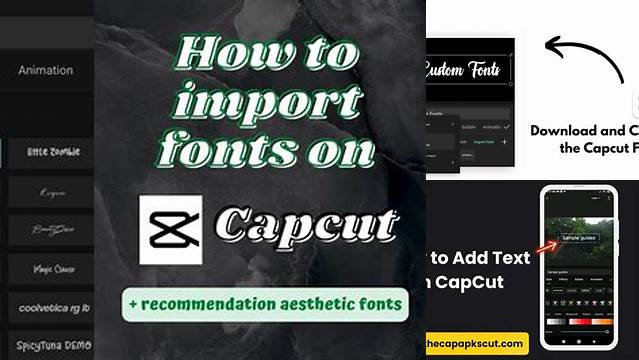
Import Fonts To CapCut IPhone: Easy Guide
Hey guys! Ever felt like your CapCut videos are missing that special something? Chances are, it might just be the fonts. You know, the right font can totally transform your video from blah to bam! And if you're an iPhone user rocking CapCut, you've come to the right place. This guide is your ultimate roadmap to importing custom fonts and leveling up your video editing game. We're going to dive deep into why custom fonts matter, how to find amazing fonts, and the step-by-step process of getting them onto your iPhone and into CapCut. Trust me, by the end of this, you'll be a font-importing pro!
Why Custom Fonts Matter in CapCut
Let's get real for a sec. The default fonts in any video editing app, including CapCut, are... well, they're fine. They do the job. But they're not exactly going to make your videos stand out from the crowd, are they? That's where custom fonts come in. Think of them as the secret sauce to your visual storytelling. The perfect font can amplify your message, set the mood, and inject your videos with personality. Imagine you're creating a fun, quirky vlog – a playful, hand-drawn font would be the bomb! Or perhaps you're crafting a sophisticated tutorial – a sleek, modern font would scream professionalism. See what I mean? Custom fonts aren't just about making things look pretty; they're about communication. They're about adding an extra layer of depth and meaning to your videos. They allow you to truly express your unique style and brand. Using custom fonts allows you to maintain consistency across all your videos, reinforcing your brand identity. By choosing fonts that reflect your brand's personality, you can create a cohesive and recognizable look. This consistency helps viewers quickly identify your content and builds trust over time. Different fonts evoke different emotions and associations. A bold, sans-serif font might convey a sense of modernity and strength, while a delicate, serif font could suggest elegance and tradition. Understanding the psychology of fonts allows you to strategically select fonts that resonate with your target audience and enhance the emotional impact of your videos. Plus, let's be honest, using the same old default fonts can get a little…boring. Custom fonts inject creativity and originality into your projects, preventing your videos from looking generic. This is especially crucial in today's crowded online landscape, where standing out is more important than ever. Custom fonts can help you achieve a more polished and professional look, elevating the overall quality of your videos. Whether you're creating content for social media, marketing materials, or personal projects, the right font can make a significant difference in how your videos are perceived. The ability to use custom fonts offers a higher degree of creative freedom, allowing you to experiment with different styles and find the perfect match for your vision. This flexibility is essential for creating videos that truly reflect your unique aesthetic and message. So, ditch the default fonts and embrace the world of custom typography – your videos (and your viewers) will thank you for it!
Finding the Perfect Fonts for Your CapCut Projects
Okay, so you're sold on the whole custom font thing. Awesome! But where do you even begin to find these fontastic treasures? Don't worry, the internet is overflowing with amazing fonts just waiting to be discovered. But with so many options, it can feel a little overwhelming. That's why I'm going to break down some of my favorite resources and tips for finding the perfect fonts for your CapCut projects. First up, let's talk about font marketplaces. These are websites that specialize in selling fonts, and they often have huge libraries with tons of variety. Think of them as the department stores of the font world. Some popular options include MyFonts, Creative Market, and Fontspring. These marketplaces offer both free and premium fonts, so you can find something that fits your budget. One thing I love about these sites is that they often have search filters that let you narrow down your options by style, weight, and other characteristics. This makes it so much easier to find exactly what you're looking for. For example, if you know you want a bold, sans-serif font for a title, you can filter your search accordingly. Now, if you're on a tighter budget (and who isn't these days?), there are tons of fantastic free font resources out there too. Websites like Google Fonts, Font Squirrel, and DaFont are goldmines for free fonts. Google Fonts is particularly awesome because all the fonts are open-source and web-friendly, meaning they'll look great on any device. Font Squirrel is another great option, and they even have a handy font identifier tool that can help you find fonts similar to ones you've seen elsewhere. DaFont is a classic resource, but just be aware that the quality can vary, so it's always a good idea to preview fonts carefully before downloading. When you're browsing for fonts, think about the style and tone of your videos. Are you going for something playful and casual? Or sleek and professional? The font you choose should reflect the overall vibe of your content. Pay attention to things like the font's weight (how bold or light it is), its spacing, and its overall legibility. A beautiful font is useless if it's hard to read! Don't be afraid to experiment with different fonts and see what works best for your projects. Try pairing different fonts together for headings and body text to create visual contrast. You can also use font pairings to create a visual hierarchy, guiding your viewers' eyes to the most important information. Finally, remember to check the licensing for any fonts you download, especially if you plan to use them for commercial purposes. Some fonts are free for personal use but require a license for commercial use. It's always better to be safe than sorry! So, go forth and explore the wonderful world of fonts! With a little searching, you're sure to find the perfect fonts to elevate your CapCut videos.
Step-by-Step Guide: Importing Fonts to CapCut on iPhone
Alright, you've scouted out some killer fonts and you're itching to use them in your CapCut videos. Now comes the slightly technical part – but don't worry, I'm going to walk you through it step-by-step. Importing fonts to CapCut on your iPhone is actually pretty straightforward once you know the process. We're going to be using a file management app for this, and my personal favorite (and the one I'll be using in this guide) is iFont. It's free, user-friendly, and makes the whole process a breeze. But hey, feel free to use any file management app you prefer, as long as it can handle font files (which are typically in .otf or .ttf format). First things first, you'll need to download the iFont app from the App Store. If you're using a different file management app, make sure you have that installed as well. Once you've got your app of choice ready to go, it's time to download your fonts. If you downloaded them on your computer, you'll need to get them onto your iPhone. The easiest way to do this is usually through cloud storage services like iCloud Drive, Google Drive, or Dropbox. Just upload the font files to your cloud storage from your computer, and then you can access them on your iPhone. If you downloaded the fonts directly on your iPhone (which is totally doable too!), they'll likely be in your Files app, probably in the Downloads folder. Now for the magic trick: importing the fonts into iFont. Open iFont, and you'll see a few different tabs. Tap on the "Files" tab (or the equivalent in your file management app). This will give you access to your iPhone's file system. Navigate to the folder where you saved your fonts (whether it's your Downloads folder, your iCloud Drive, or wherever else). Tap on the font file you want to import. If you downloaded a font family (which often comes as a .zip file), you'll need to unzip it first. Most file management apps have a built-in unzip function – just tap on the .zip file, and it should extract the font files. Once you've found your font file (the .otf or .ttf file), tap on it. iFont will then give you a preview of the font and an option to install it. Tap the "Install" button. You'll be prompted to install a configuration profile. Don't worry, this is perfectly normal and necessary for the font to work on your iPhone. Tap "Allow" when prompted. Your iPhone will then take you to the Settings app, where you'll need to install the profile. Tap "Install" in the top right corner, and you may need to enter your passcode. After the profile is installed, your font is officially on your iPhone! Now, the moment of truth: opening CapCut and using your new font. Close iFont and open CapCut. Create a new project or open an existing one. Add some text to your video, and then tap on the "Font" option. Scroll through the list of fonts, and you should see your newly imported font there! If you don't see it right away, try closing and reopening CapCut. Sometimes it takes a second for the app to recognize the new font. And that's it! You've successfully imported a custom font to CapCut on your iPhone. Now you can go wild and create some seriously stylish videos. Repeat these steps for any other fonts you want to import, and before you know it, you'll have a font library that's the envy of all your video-editing friends.
Troubleshooting Common Font Import Issues
Okay, so you've followed all the steps, but something's not quite right. Maybe your font isn't showing up in CapCut, or maybe you're getting an error message. Don't panic! Troubleshooting is just part of the creative process. Let's dive into some common font import issues and how to fix them. The most common issue is that the font isn't showing up in CapCut. This can be super frustrating, but there are a few things you can try. First, the classic: restart CapCut. Sometimes, simply closing the app completely and reopening it can do the trick. It's like giving your phone (and CapCut) a little jolt to refresh its memory. If that doesn't work, try restarting your iPhone. A full device restart can clear out any temporary glitches or conflicts that might be preventing the font from showing up. Think of it as a more powerful version of restarting the app. Another potential culprit is that the font profile wasn't installed correctly. Remember that step where you had to install a configuration profile in the Settings app? If that didn't go smoothly, the font might not be properly recognized by your system. To check, go to your iPhone's Settings app, then tap on "General," then "Profiles & Device Management." You should see a profile related to the font you installed. If it's not there, you'll need to go back to iFont (or your file management app) and try installing the profile again. Make sure you tap "Allow" when prompted and follow all the on-screen instructions. Sometimes, the font file itself might be the problem. It's rare, but it's possible that the font file is corrupted or incompatible with CapCut. Try downloading the font again from a different source, or try a different font altogether to see if that solves the issue. Also, make sure you're using a font file format that CapCut supports (.otf or .ttf). Another issue you might encounter is an error message during the installation process. This can happen for a variety of reasons, but one common cause is that you've already installed the same font before. If you're trying to install a font that's already on your system, it can cause a conflict. Try uninstalling the font profile (if it exists) and then reinstalling it. If you're still getting an error message, try searching online for the specific error code. There's a good chance someone else has encountered the same issue and found a solution. Finally, remember that some fonts might not work perfectly in CapCut. CapCut is a fantastic app, but it's not compatible with every single font out there. If you've tried everything else and your font still isn't working, it might just be an incompatibility issue. Try using a different font or contacting CapCut's support team for assistance. Don't get discouraged if you run into a few bumps along the way. Troubleshooting is a valuable skill, and you'll learn something new every time you solve a problem. With a little patience and persistence, you'll be importing fonts like a pro in no time!
Level Up Your CapCut Videos with Custom Fonts
So there you have it, guys! You're now equipped with the knowledge and skills to import fonts to CapCut on your iPhone and take your videos to the next level. We've covered everything from why custom fonts matter to how to find them, import them, and troubleshoot any issues you might encounter. But the real magic happens when you start putting these skills into practice. Now it's time to experiment, to play around, and to discover your own unique font style. Try different fonts for different types of videos. See how a bold, sans-serif font can make your titles pop, or how a delicate script font can add a touch of elegance to your lower thirds. Don't be afraid to mix and match fonts, but always keep legibility in mind. A beautiful font is useless if your viewers can't read it! Think about your brand and your message. What kind of personality do you want to convey? Your font choices should reflect that personality. A playful, quirky brand might benefit from a hand-drawn font, while a serious, professional brand might opt for a more classic and understated typeface. The possibilities are endless, and the only limit is your imagination. Remember, custom fonts are just one tool in your video-editing arsenal. They're a powerful tool, but they work best when combined with other elements like great visuals, engaging audio, and compelling storytelling. Use fonts to enhance your message, not to distract from it. And most importantly, have fun! Video editing is a creative process, and it should be enjoyable. So, dive into the world of custom fonts, explore different styles, and find the fonts that make your videos shine. With a little practice, you'll be creating videos that are not only visually stunning but also perfectly aligned with your brand and your message. So go ahead, level up your CapCut videos with custom fonts, and show the world what you've got! You've got this!